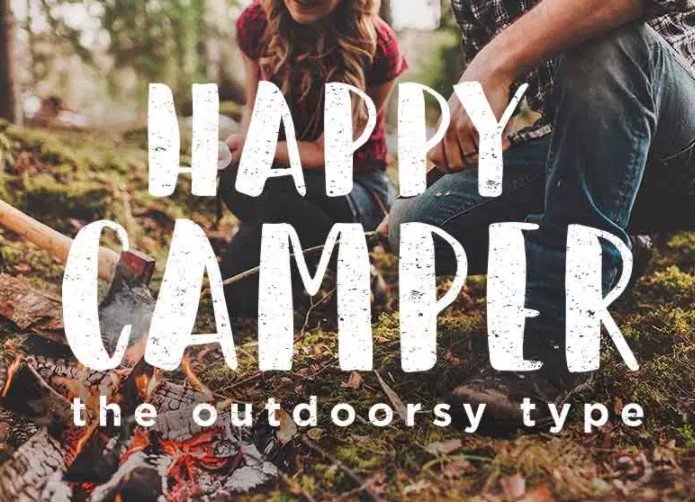
We are excited to share the Happy Camper Font, an incredibly beautiful and unique brushed typeface. This vintage font adds an attractive quality to your designs, making them stand out with its remarkable features.
This is also suitable to work with the combination of nouradilla script font as a pairing. That will provide you more features which will be used in making large designs easily. It contains more than 250 glyphs and ligatures.
The Happy Camper Font is the famous and amazing typeface which was product of the combination efforts by Erika Fisher.